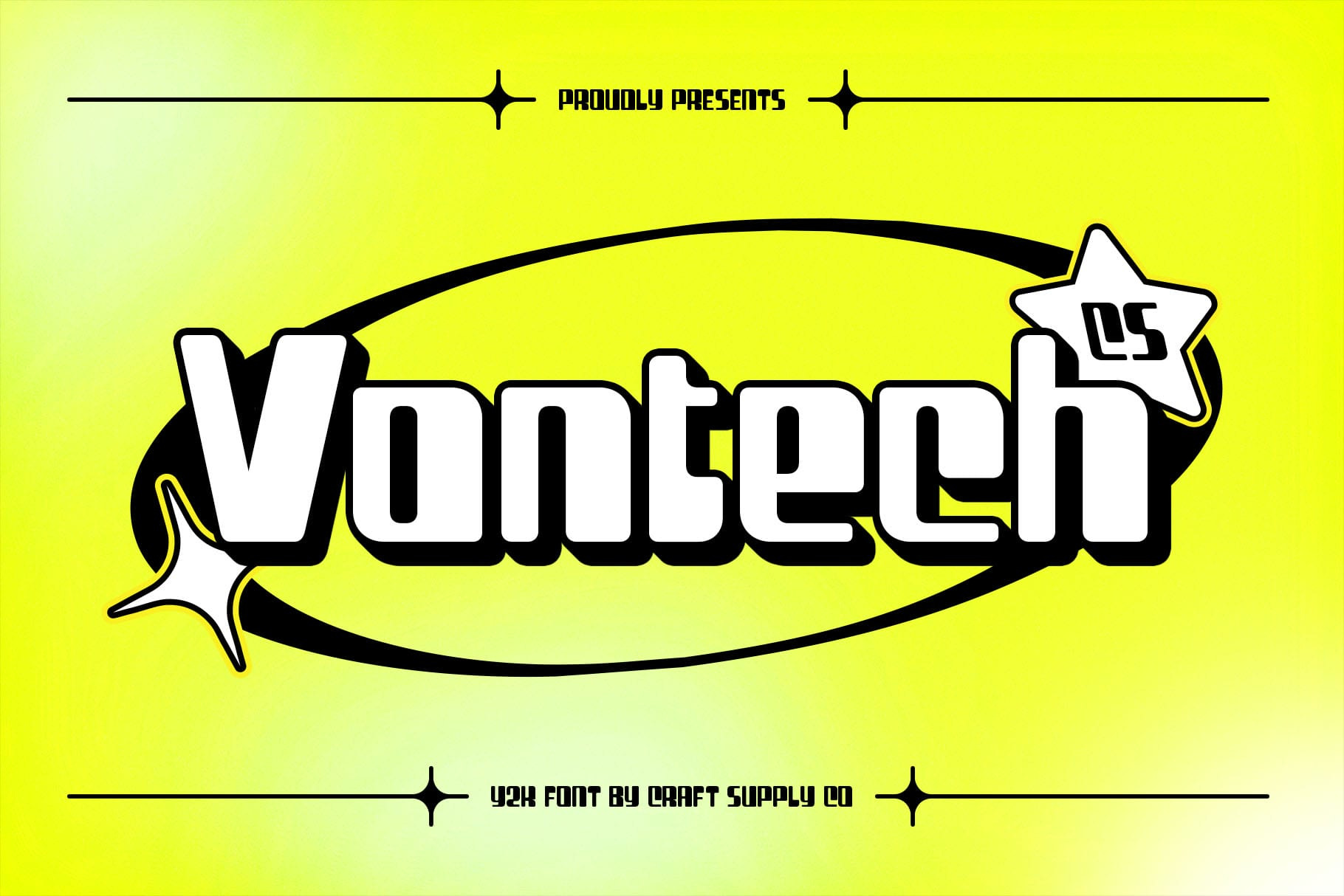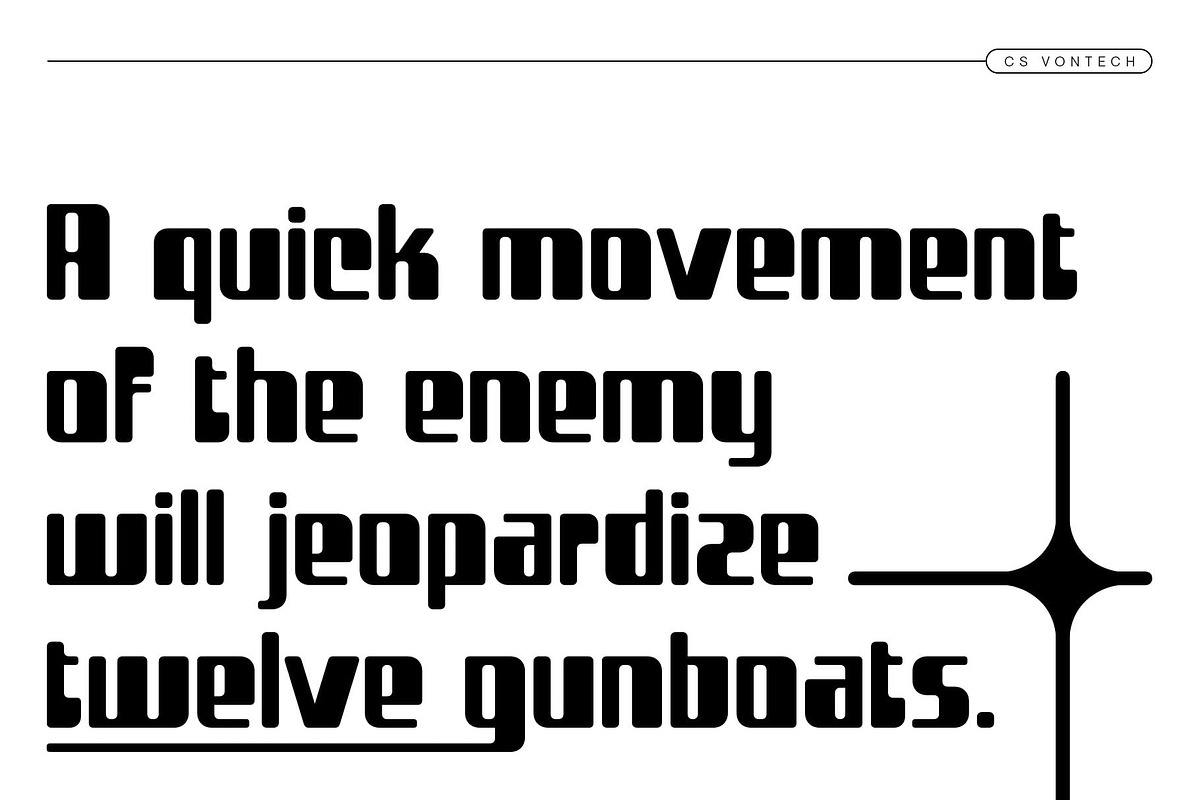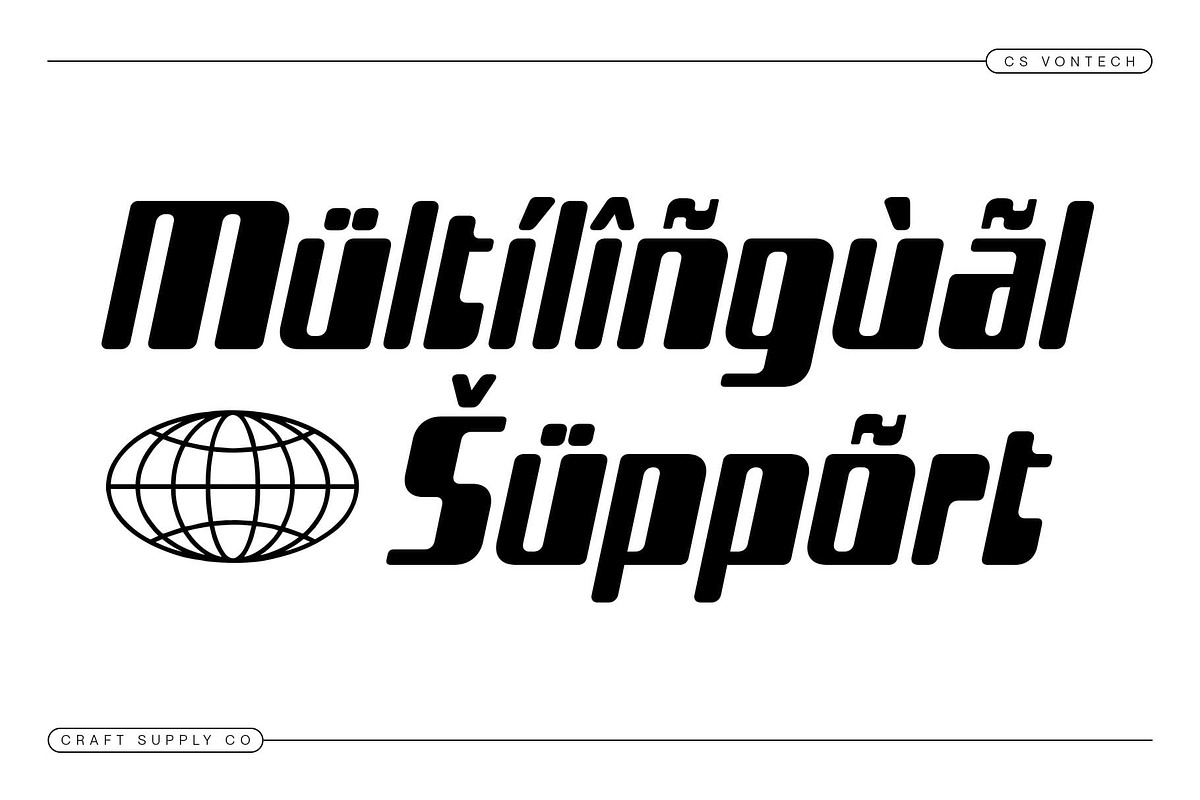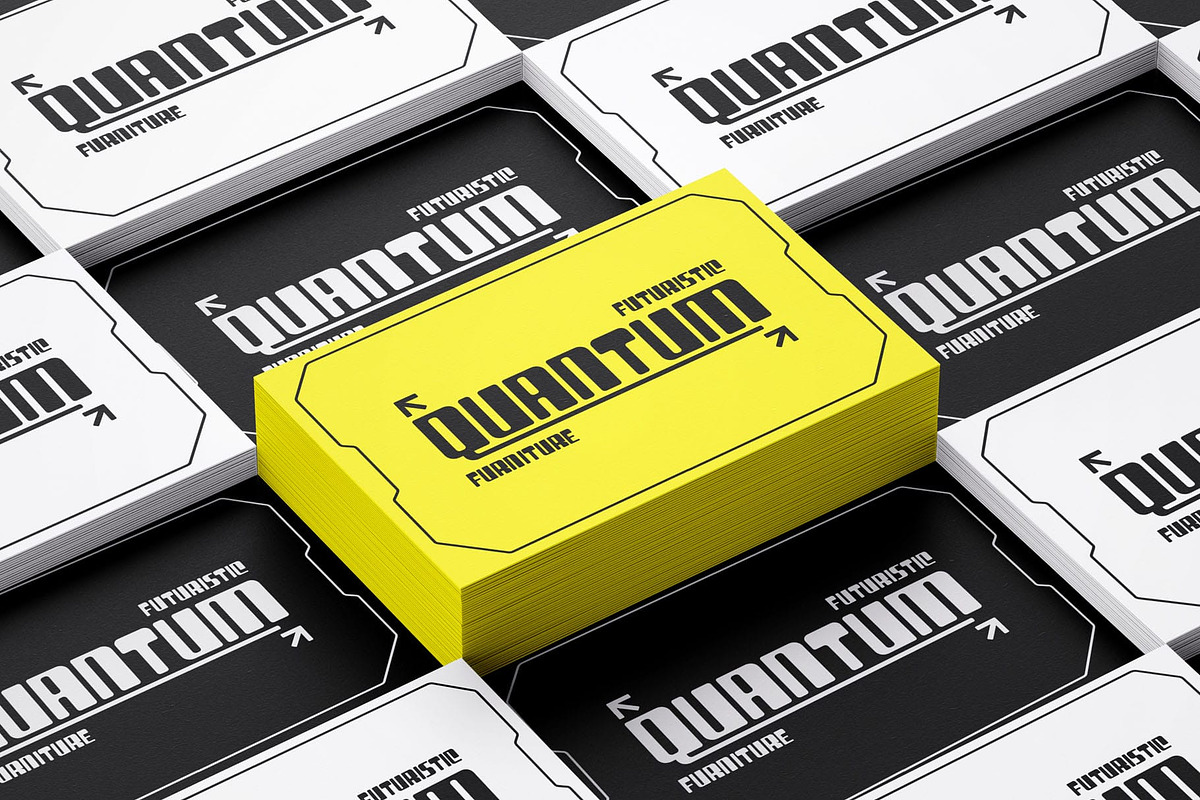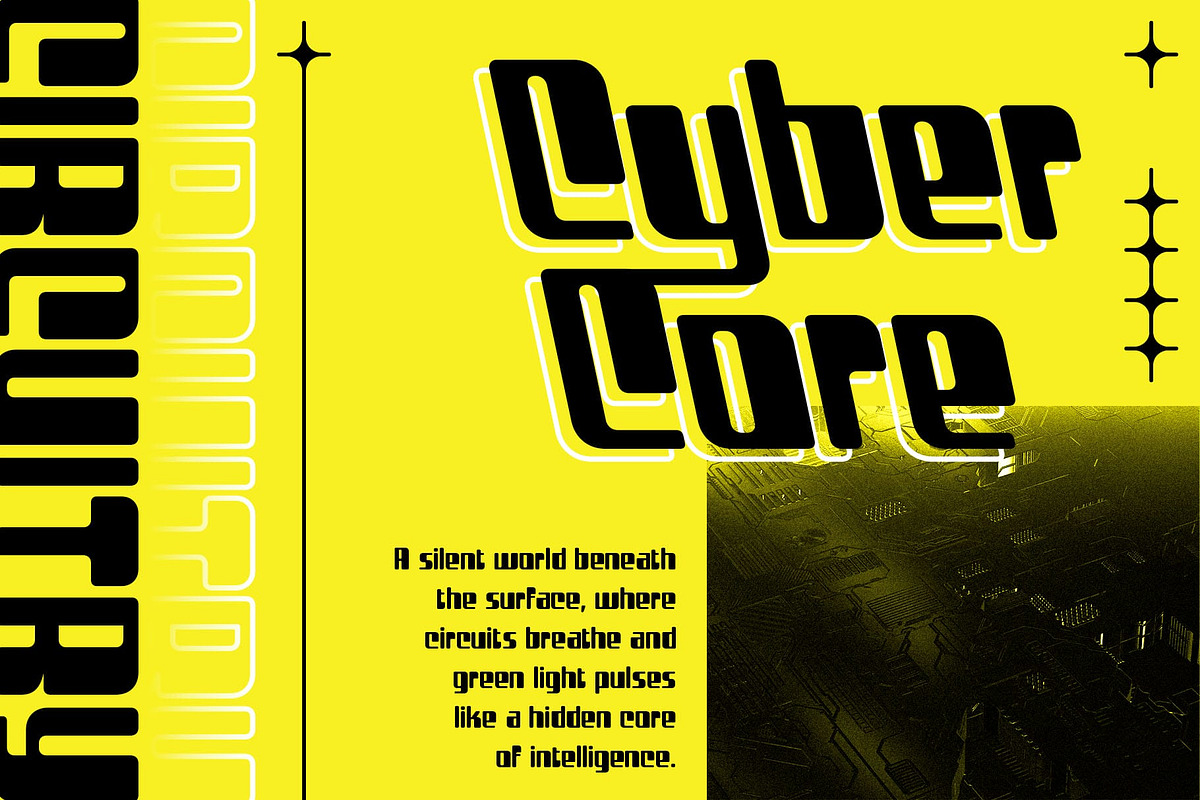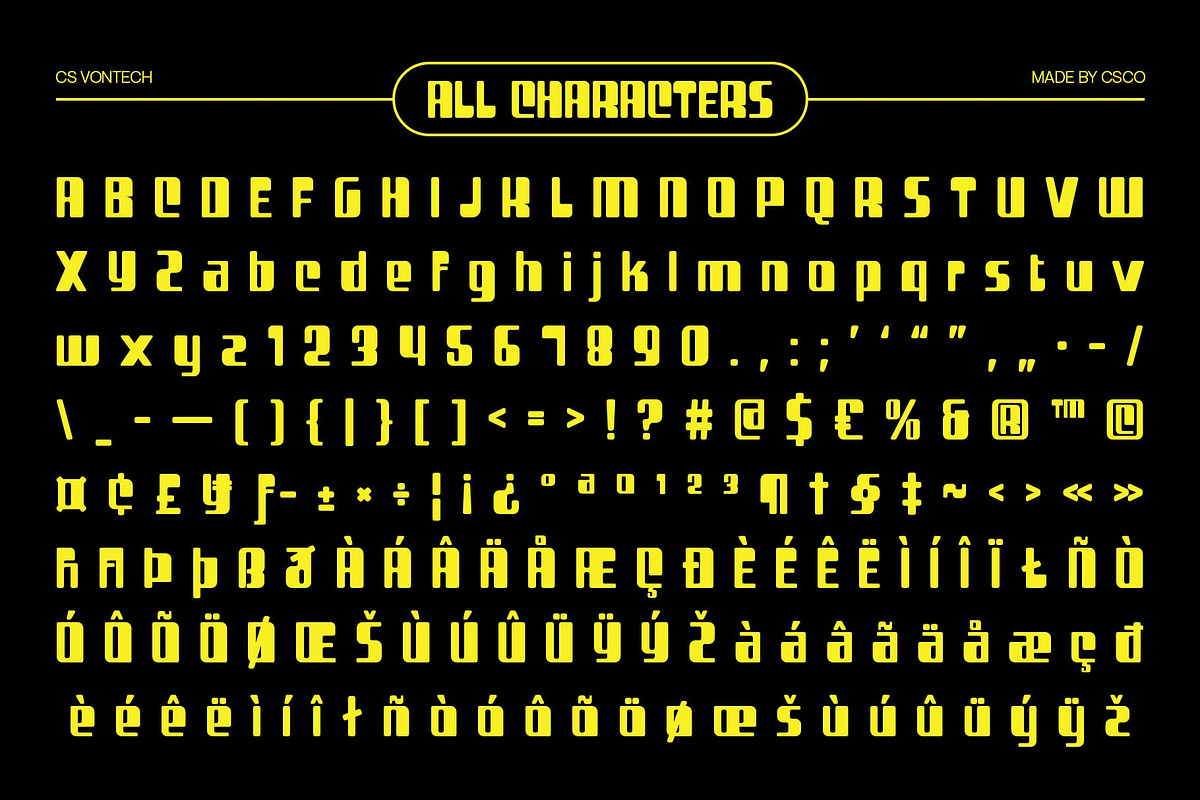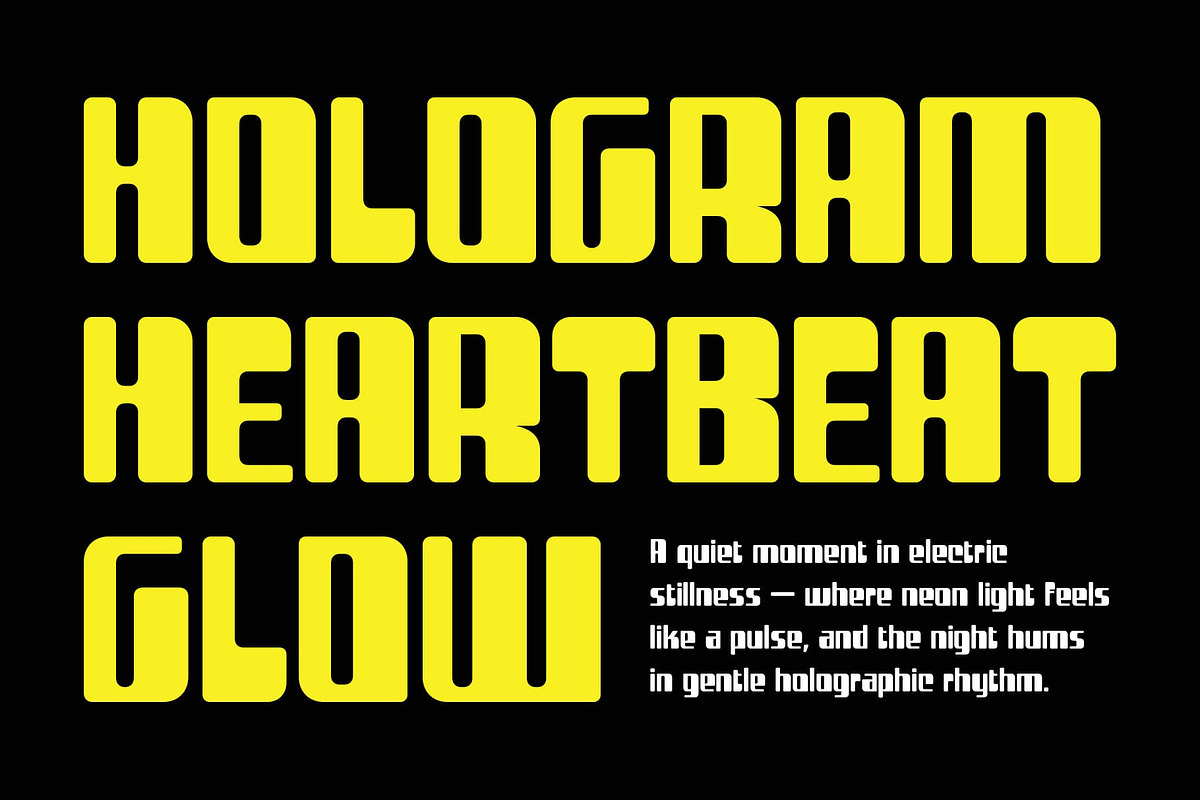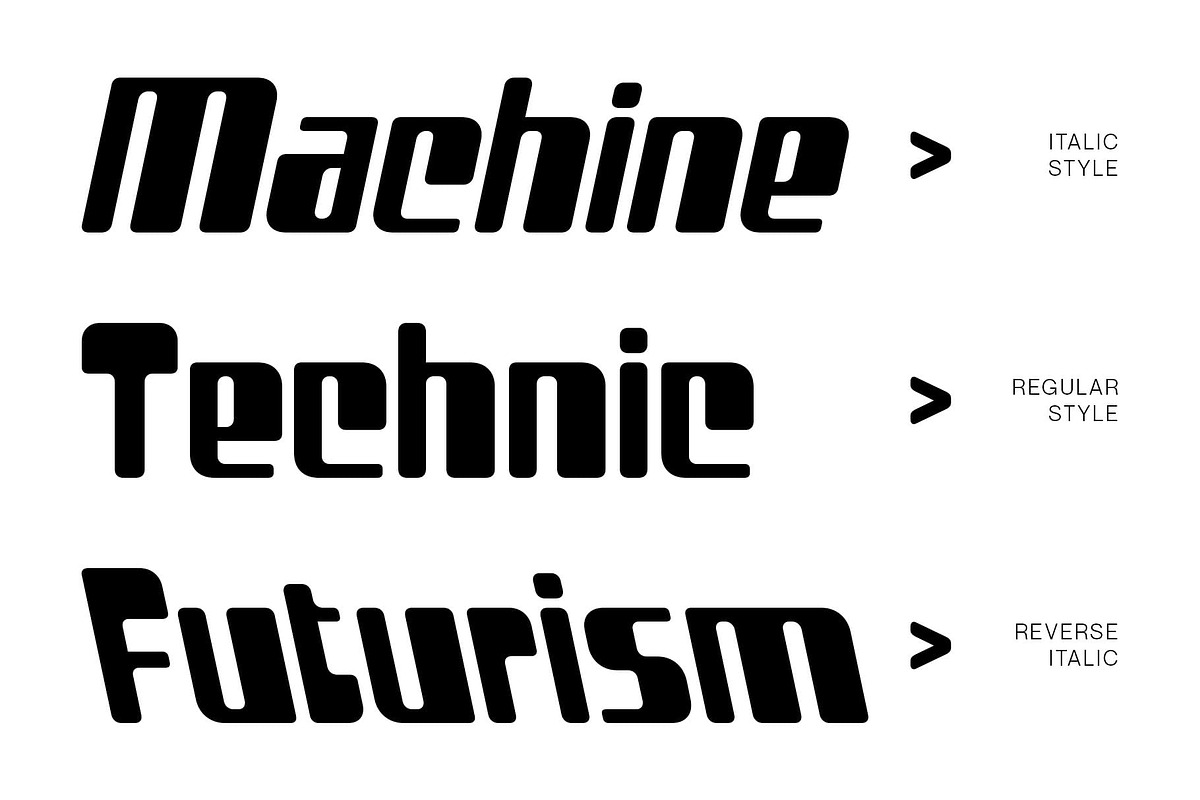
CS Vontech – Y2K Font
CS Vontech – Y2K Display Font with Futuristic Energy
Dynamic Display Font for Modern Impact This is a Y2K-inspired display font that captures the vibrant spirit of early 2000s design. Featuring bold outlines and strong geometric structure, it radiates energy and futuristic style, making it the perfect choice for designers who want to channel nostalgia with a modern edge.
Technology-Inspired Shapes with Bold Expression With its techno-driven design and sharp contours, this font embodies innovation and excitement. Each letterform is crafted to exude motion and digital dynamism, reminiscent of the tech culture and futuristic visions that defined the Y2K era. This makes it ideal for gaming visuals, sci-fi posters, and digital branding seeking a bold, forward-thinking look.
Futuristic Flair with Playful Energy The combination of bold outlines and futuristic rhythm gives this font a striking visual presence. It’s not just a font it’s an expression of confidence and creativity, perfect for designs that aim to stand out in high-energy contexts like music visuals, party events, and tech campaigns.
Versatile for Digital and Print Design From logos and branding to motion graphics and event posters, this font adapts effortlessly to various media. Its futuristic form and confident structure make it a reliable choice for projects that demand impact, clarity, and modern flair.
- CS Vontech Regular
- CS Vontech Italic
- CS Vontech Reverse Italic